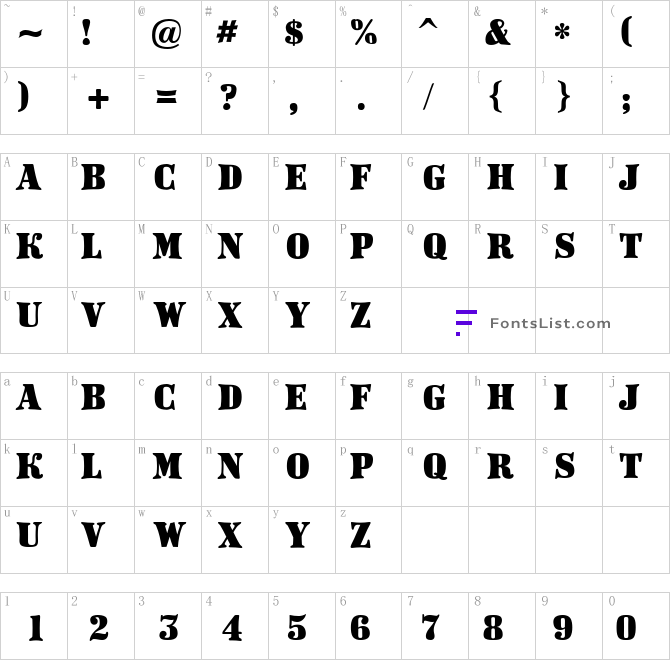
a_DodgerCncvDst-Bold.ttf is a very beautiful artistic font, a_DodgerCncvDst-Bold.ttf is widely used in the design and printing of various books and pictures,a_DodgerCncvDst-Bold.ttf has a strong visual impact,a_DodgerCncvDst-Bold.ttf is a commonly used font in newspapers, magazines and books, and is used in posters, e-commerce Poster design, store design, logo design, font design and other fields.a_DodgerCncvDst-Bold.